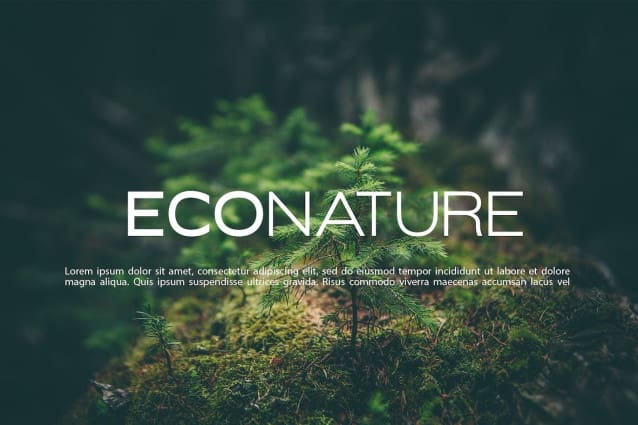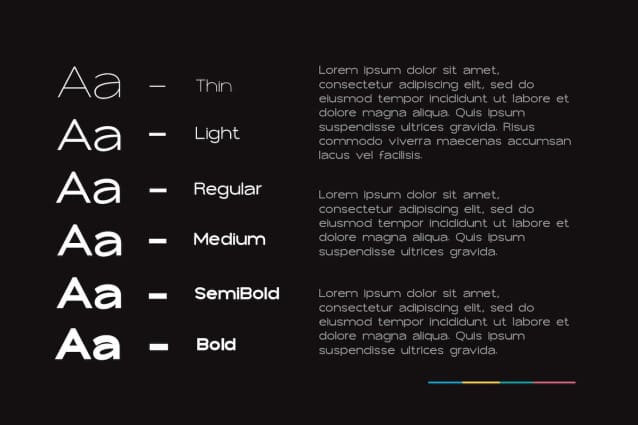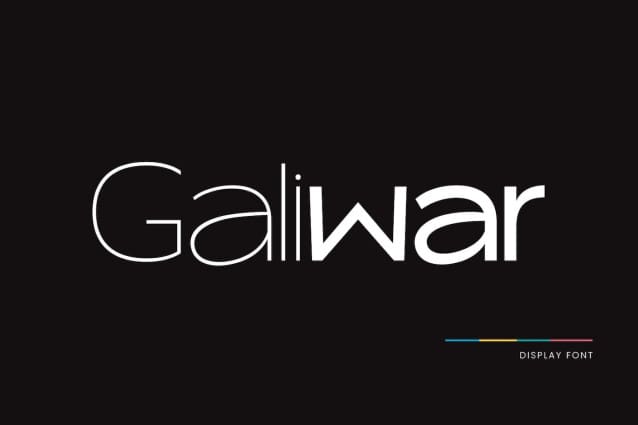
Galiwar Font
Galiwar Font is a Display Typeface. It has a dependable and uncompromising style, with controlled letterforms and modern touches. It looks amazing in logos, magazines, and movies. Galiwar is created with all the tasks of a corporate font and also for the usage in a variety of projects, including branding, logos, titles, headlines, posters, screens, display, digital ads, and everything else.